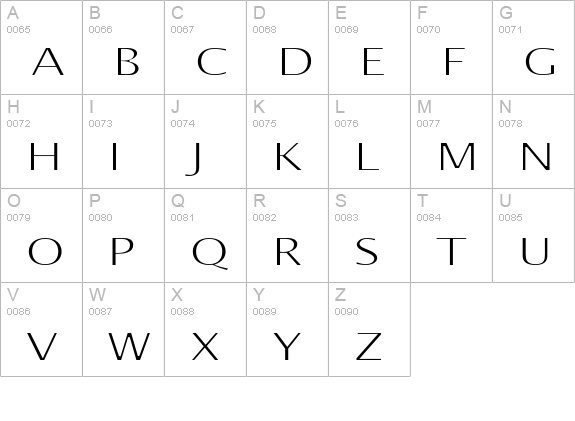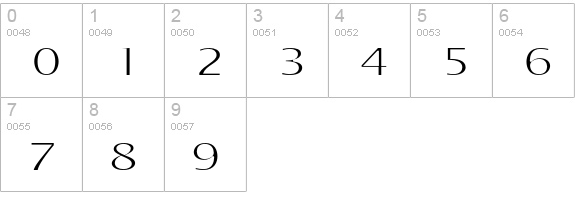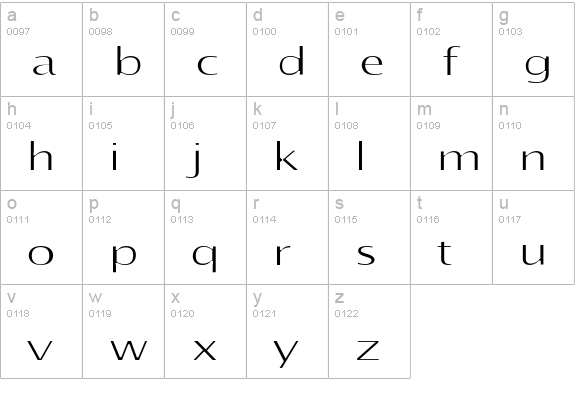
Intention Font Details
Intention font is a striking and versatile typeface that effortlessly captures attention with its unique design elements. This font exudes a sense of purpose and determination, making it perfect for bold headlines, impactful logos, and eye-catching branding materials. The Intention font features a harmonious blend of sharp edges and fluid curves, creating a balanced and visually appealing aesthetic. Its clean and modern look makes it suitable for a wide range of design projects, from print materials to digital platforms. One of the most remarkable aspects of Intention font is that it is available for free. Yes, you read that right! This impressive typeface can be freely downloaded at FontsMarket.com. This makes it an incredibly accessible option for designers, students, entrepreneurs, and anyone else looking to add a touch of elegance and sophistication to their projects without breaking the bank. With its wide range of weights and styles, Intention font offers endless possibilities for creative expression. Whether you're aiming for a minimalist and refined look or a bold and impactful statement, this font has got you covered. Its versatility allows it to seamlessly adapt to various design themes, ensuring that it will always find a place in your font collection. In addition to its visual appeal and accessibility, Intention font also boasts exceptional legibility. Its carefully crafted letterforms ensure that your message will be conveyed clearly and effectively, even at smaller sizes or in challenging design contexts. So why wait? Experience the power of Intention font today and elevate your designs to new heights. Don't miss the opportunity to download this remarkable font for free at FontsMarket.com and unlock a world of creative possibilities. Whether you're a seasoned designer or just starting your creative journey, Intention font is a valuable addition to your toolkit.